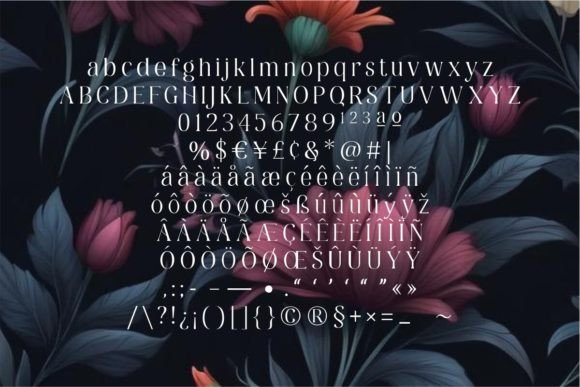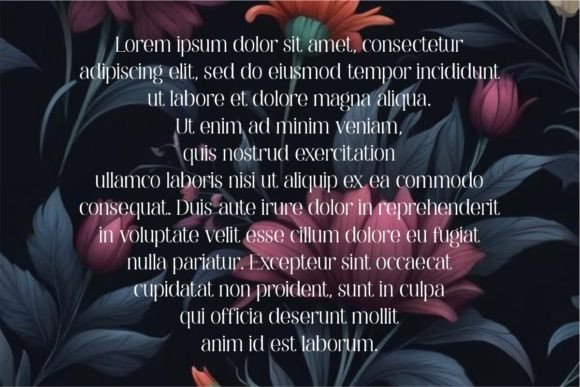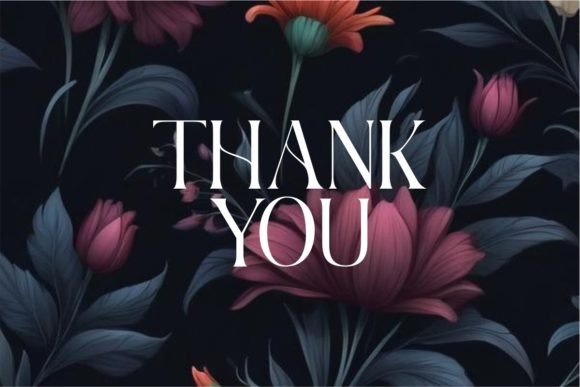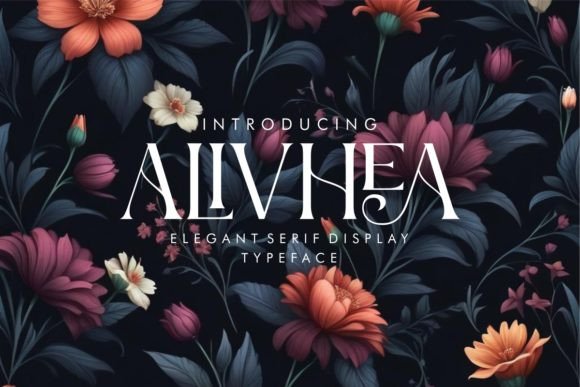
Introducing Alivhea Font: Elevate Your Designs with Elegance and Sophistication
In the world of typography, fonts play a crucial role in conveying the message and aesthetic of a design. For designers and crafters seeking to add a touch of elegance and sophistication to their projects, Alivhea Font is an exceptional choice. This serif display font is designed to make a statement, bringing a graceful touch of refinement to any design.
The Charm of Alivhea Font
Alivhea Font lives up to its name by offering a charming and distinct style that sets it apart from other fonts. Its serif design adds a classic touch, while its display font characteristics make it perfect for headlines, logos, and any other design element that requires a bit of flair. Whether you’re working on a branding project, a website, or a print design, Alivhea Font can help you achieve a beautiful and eye-catching typographic experience.
Key Features of Alivhea Font
• Elegant Serif Design: Alivhea Font boasts a sophisticated serif design that adds a touch of refinement to any project.
• Display Font Characteristics: With its display font features, Alivhea is perfect for headlines, titles, and other design elements that require a bit of drama and flair.
• Charming and Distinct Style: Alivhea’s unique style sets it apart from other fonts, making it an excellent choice for designers seeking to create a lasting impression.
• Versatility: This font is suitable for a wide range of design projects, including branding, websites, print designs, and more.
Why Choose Alivhea Font?
For designers and crafters seeking to elevate their designs, Alivhea Font offers several compelling reasons to choose it:
• Instant Elegance: Alivhea adds a touch of sophistication and elegance to any design, making it perfect for projects that require a refined aesthetic.
• Improved Readability: The serif design of Alivhea Font improves readability, making it an excellent choice for body text and headlines.
• Unique Style: Alivhea’s distinct style ensures that your design stands out from the crowd, making it an excellent choice for designers seeking to create a lasting impression.
Tips for Using Alivhea Font Effectively
To get the most out of Alivhea Font, consider the following tips:
• Pair with Simple Fonts: Pair Alivhea Font with simple fonts to create a striking contrast and add visual interest to your design.
• Experiment with Sizes: Experiment with different font sizes to create a hierarchy of information and add depth to your design.
• Use for Headlines and Titles: Use Alivhea Font for headlines and titles to create a lasting impression and add a touch of elegance to your design.
Alivhea Font is an exceptional choice for designers and crafters seeking to add a touch of elegance and sophistication to their designs. With its charming and distinct style, this serif display font is perfect for headlines, logos, and any other design element that requires a bit of flair. By choosing Alivhea Font, you can elevate your designs and create a beautiful and eye-catching typographic experience.